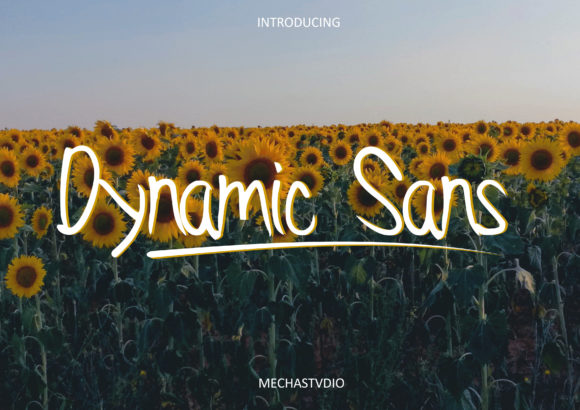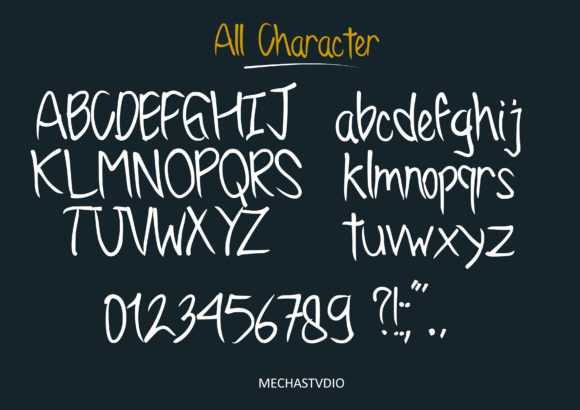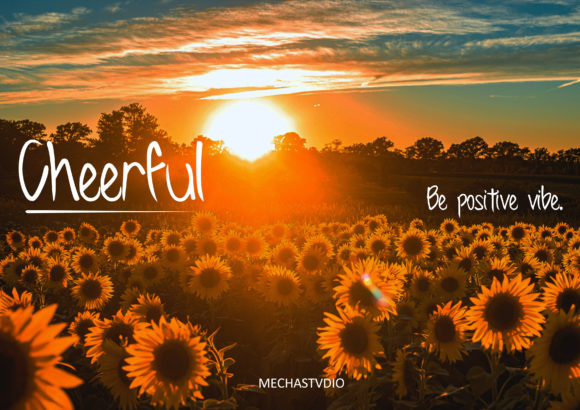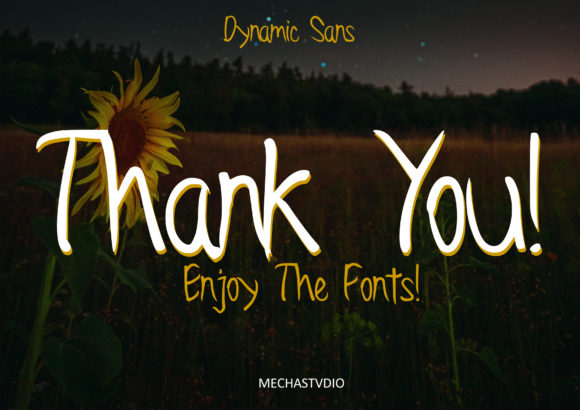
Dynamic Sans Font
About Dynamic Sans Font
Dynamic Sans is a captivating and light handwritten font that brings a distinct and fresh vibe to your design projects. With its unique style and stunning impact, this font has the power to infuse a natural and dynamic energy into your creations.
The beauty of Dynamic Sans lies in its handcrafted appearance, which adds an authentic and personal touch to your designs. The natural flow of the characters captures the essence of handwritten script, making it a versatile choice for a wide range of projects.
The light weight of Dynamic Sans gives your text an airy and graceful quality, allowing it to seamlessly blend into various design contexts. Whether you’re working on branding materials, digital graphics, social media posts, or any other project, this font’s light and elegant appearance will enhance the overall aesthetic.
Dynamic Sans is a fantastic way to add a touch of individuality and character to your designs. Its unique feel sets it apart from standard typefaces, making your text more engaging and visually appealing. Whether used in headlines, body text, or as an accent element, this font’s stunning impact is sure to leave a lasting impression.
The natural spark that Dynamic Sans brings to your design projects is perfect for creating a sense of authenticity and approachability. Its handwritten charm resonates with audiences and adds a humanistic quality that can foster a stronger connection between your message and the reader.
Incorporating Dynamic Sans into your design toolkit allows you to experiment with typography in a refreshing and impactful way. Its unique feel and stunning impact open up possibilities for creating designs that stand out and make a statement.
In summary, Dynamic Sans is a beautiful and light handwritten font that adds a unique and stunning impact to your design projects. Its natural spark and distinctive feel make it a versatile choice for a variety of contexts, and it’s sure to elevate the overall look and feel of your creations.